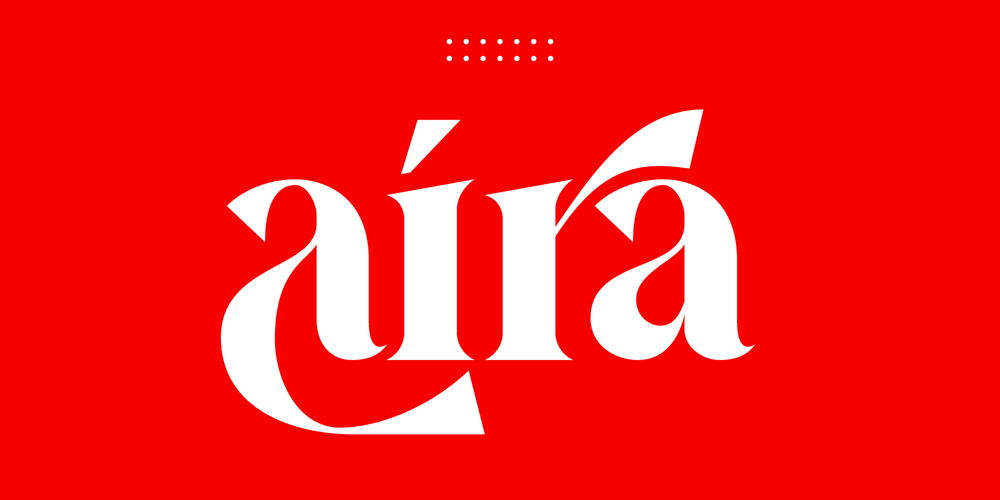
Aira Font Family was designed by Bakhrudin Ja’far and published by Jafar07. Aira contains 1 styles and family package options. Aira is a serif font with a modern style that is designed very neatly and boldly, especially for designers and clients who want to have a classic yet trendy design concept, with 35 alternative lowercase letters and 9 ligatures, as an option for those of you who want to add a unique touch to your design.This font is perfect for a sturdy and discreet company logo and is also perfect for magazine layout designs, articles, quotes, and even posters.